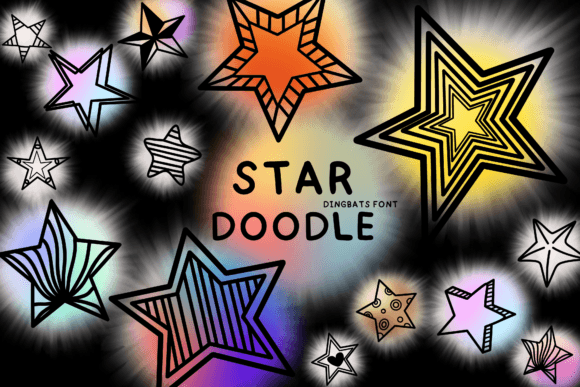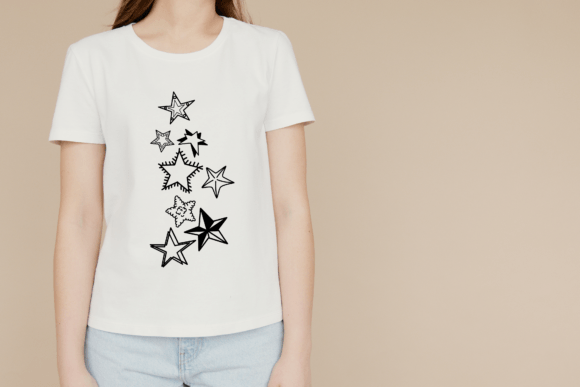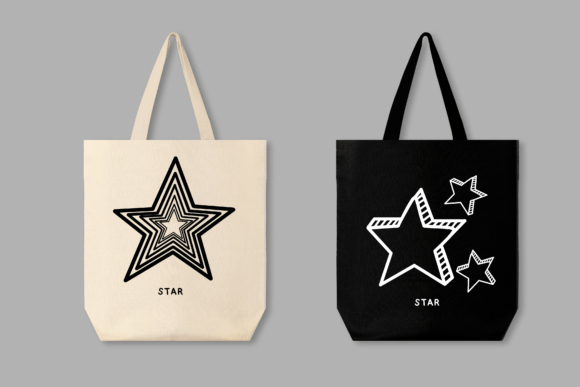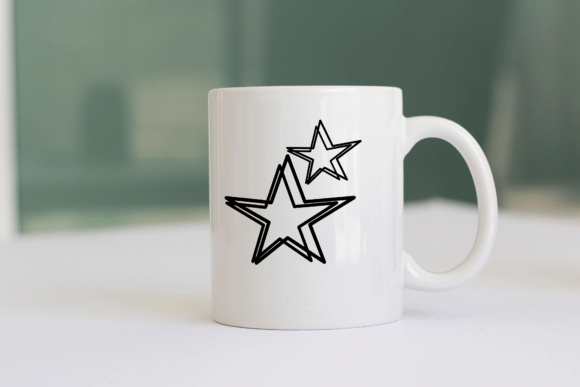
Star Doodle Font: A Cute Craft & Cricut Dingbat!
About the Star Doodle Font
Introducing the Star Doodle Font, a beautifully crafted typeface designed to elevate your creative projects. Introducing Star Doodle, a charismatic dingbat font with a raw, freehand sketch style. Perfectly designed to catapult your creative expressions, its unique aesthetic adds a touch of whimsy to a myriad of projects.
Whether it’s lending a personal note to wedding invitations, breathing life into DIY ventures, adding an artful twist to crafts, enhancing decorations, or defining distinctive logos, Star Doodle is the key to unlocking a treasure trove of fun, innovative design possibilities.
Crafted with passion and precision, it’s more than just a font—it’s a spark to ignite your creative thoughts and ideas.
Star Doodle Font Usage Examples
Star Doodle Font Example